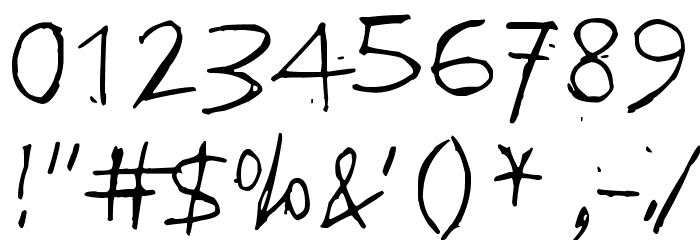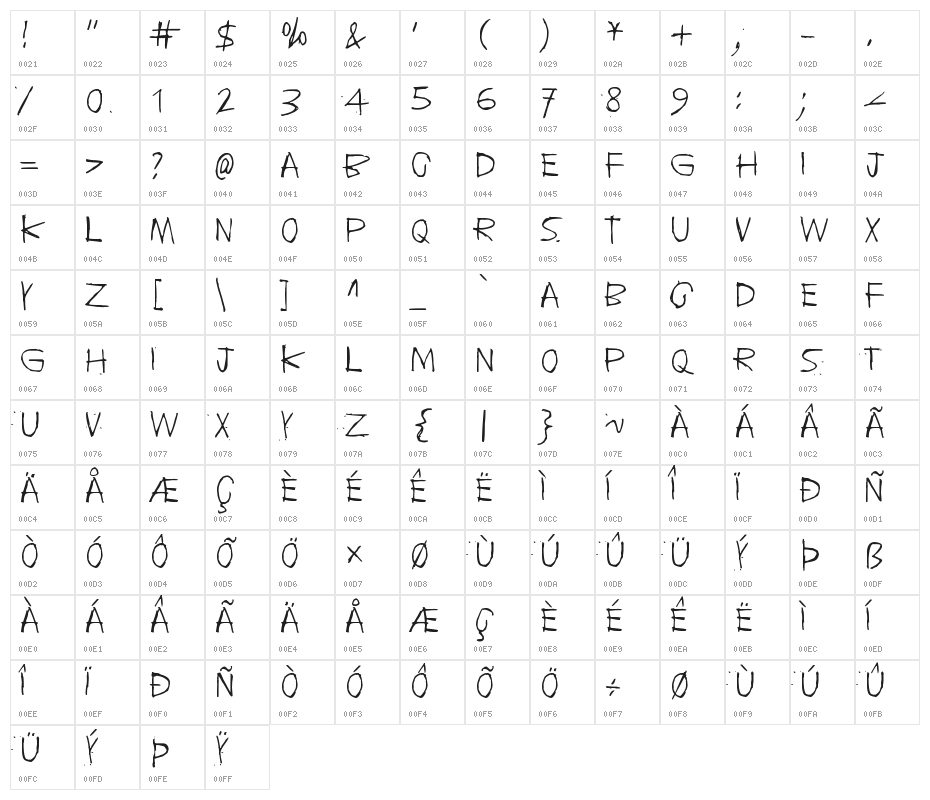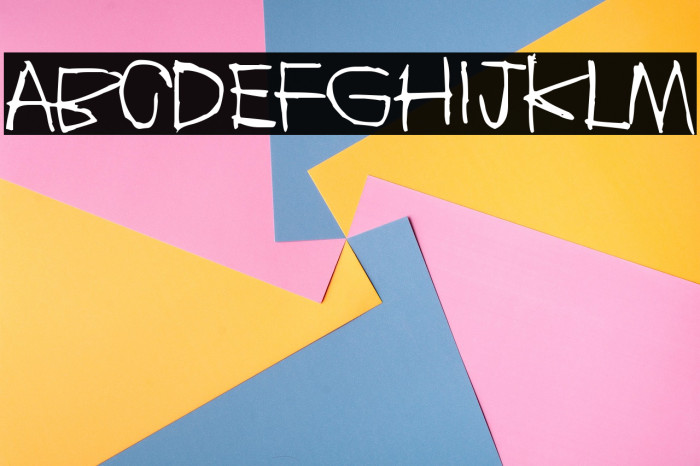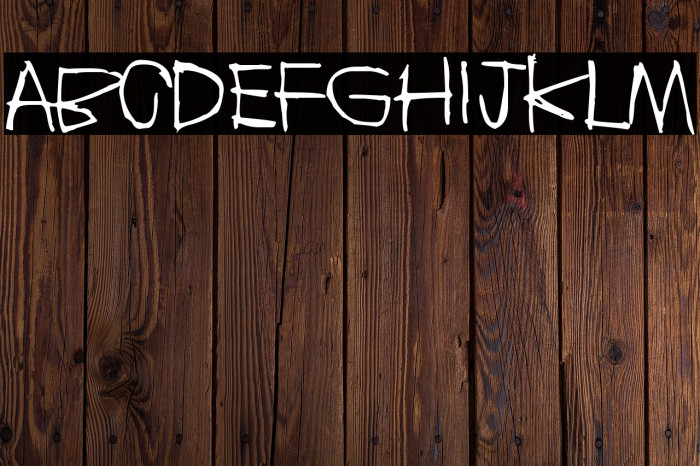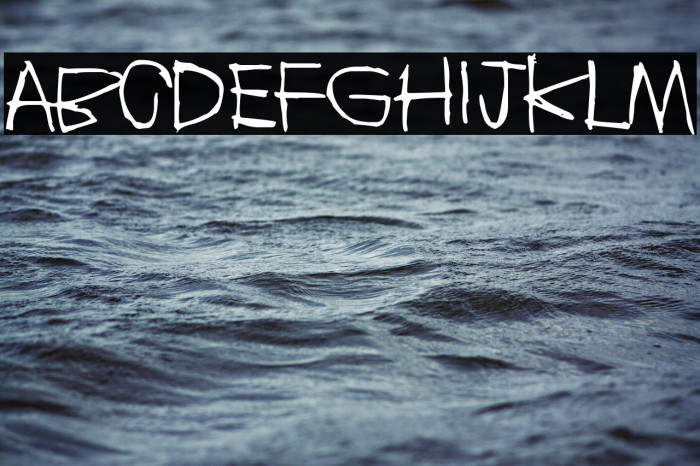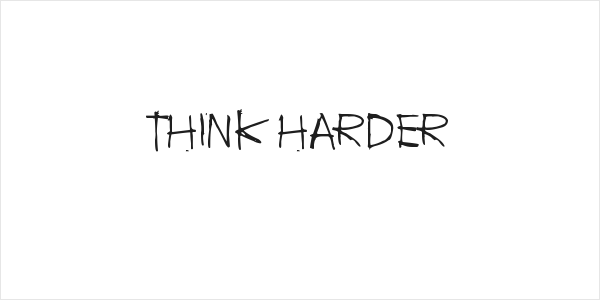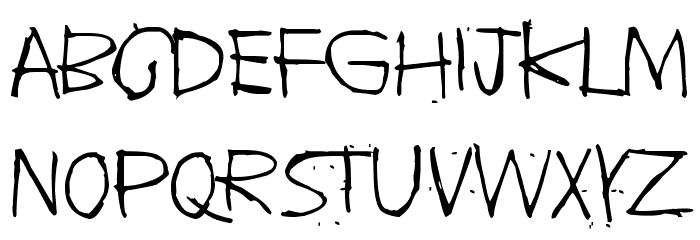
Think harder Font
Think harder Description
This font exhibits a raw, hand-drawn aesthetic, characterized by its irregular and slightly chaotic strokes. The letters are unevenly weighted, giving it a dynamic and energetic feel. Each character appears to be crafted with a brush or marker, resulting in a textured and organic appearance. The uppercase and lowercase letters maintain a consistent style, with a playful and informal vibe. The numerals and special characters follow the same hand-drawn style, adding to the overall cohesive look. This font is perfect for projects that require a personal touch or a sense of spontaneity.